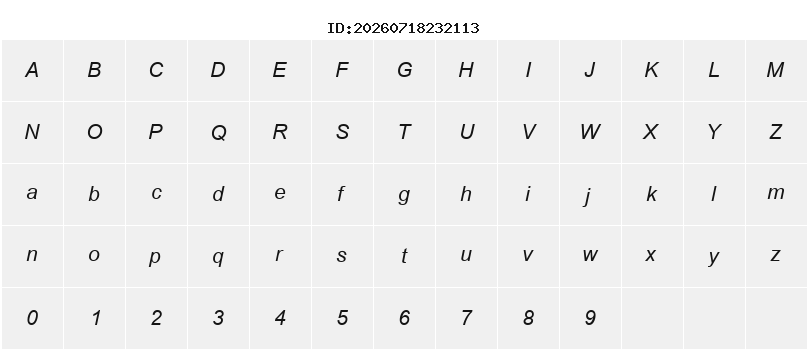
• Font Name: CordiaUPC
• Font ID: Windows 95 - CordiaUPC Bold Italic
• Full Font Name: CordiaUPC Bold Italic
CordiaUPC.ttf is a modern, elegant sans-serif font designed for ultimate readability and visual harmony. Perfect for branding, headlines, web design, and print materials.